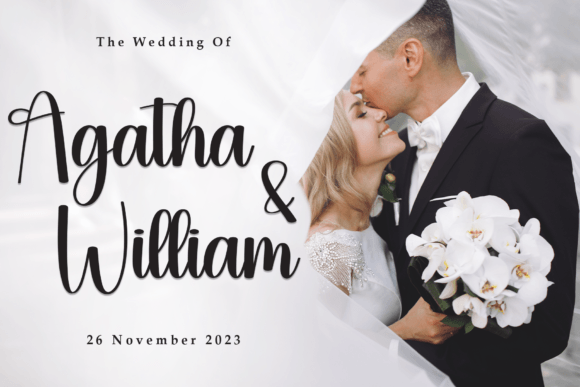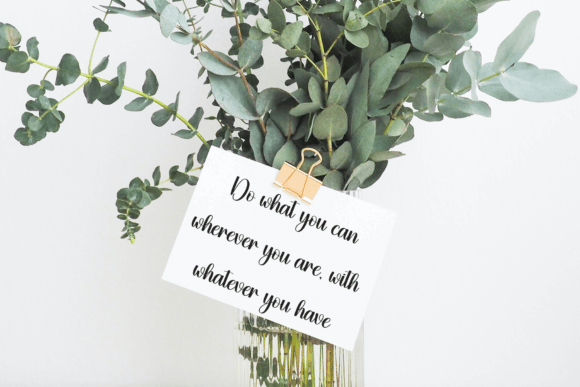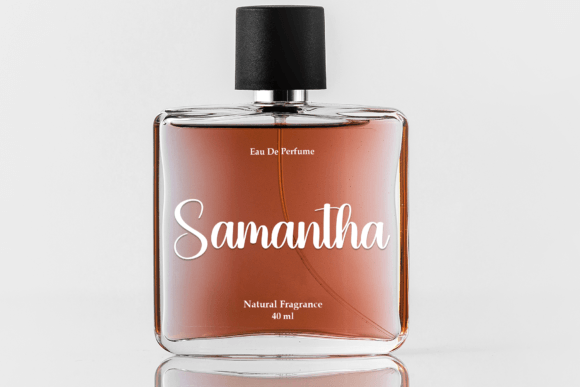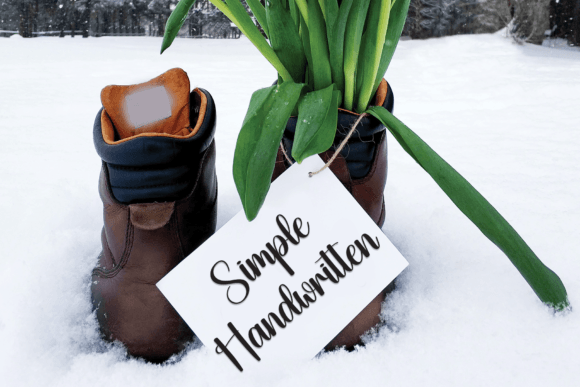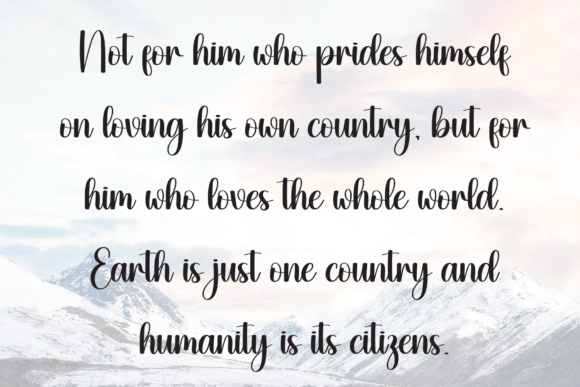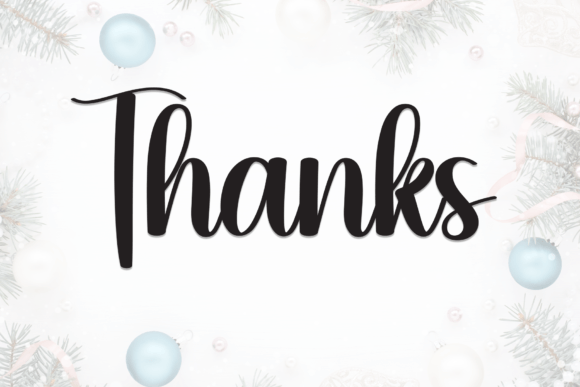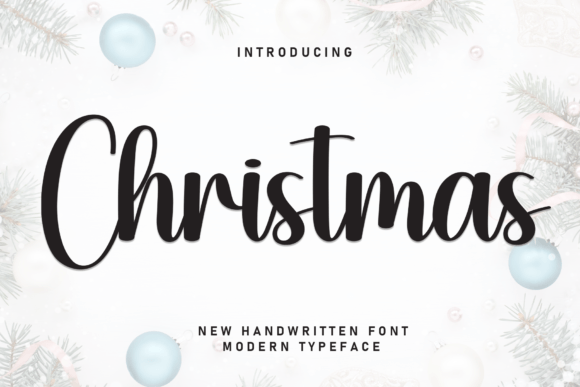
Introducing Christmas Font: The Ultimate Choice for Festive Designs
Are you looking for a font that captures the essence of the holiday season? Do you want to create eye-catching logos, branding, and quotes that exude a sense of joy and festivity? Look no further than Christmas Font, a lovely and timeless handwritten font that’s perfect for designers and crafters alike.
A Font that Brings Joy and Festivity to Your Designs
Christmas Font is a beautifully crafted font that’s designed to bring a touch of magic to your designs. With its unique and beautiful touch, every letter is a work of art that will make your design come alive. Whether you’re creating a logo, branding materials, or quotes, this font is the perfect choice to add a festive touch to your work.
What Makes Christmas Font So Special?
So, what sets Christmas Font apart from other fonts? Here are just a few reasons why it’s the ultimate choice for festive designs:
• Unique and Beautiful Touch: Every letter in Christmas Font has a unique and beautiful touch that will add a personal touch to your designs.
• Handwritten Style: The font’s handwritten style gives it a warm and cozy feel that’s perfect for creating festive designs.
• Eyecatching Logos and Branding: With Christmas Font, you can create eye-catching logos and branding materials that will grab attention and leave a lasting impression.
• Perfect for Quotes and Sayings: The font is also perfect for creating quotes and sayings that will add a touch of inspiration and joy to your designs.
Why Designers and Crafters Love Christmas Font
Designers and crafters love Christmas Font for many reasons. Here are just a few:
• High-Quality Design: The font is designed with high-quality graphics that will ensure your designs look professional and polished.
• Versatile: Christmas Font is versatile and can be used for a wide range of design projects, from logos and branding to quotes and sayings.
• Festive and Fun: The font is perfect for creating festive and fun designs that will add a touch of joy to your work.
• Use it for Headings and Titles: Christmas Font is perfect for headings and titles, where you want to make a bold statement.
In conclusion, Christmas Font is a lovely and timeless handwritten font that’s perfect for designers and crafters who want to add a touch of festivity to their designs. With its unique and beautiful touch, every letter is a work of art that will make your design come alive. Whether you’re creating logos, branding materials, or quotes, Christmas Font is the ultimate choice for festive designs.